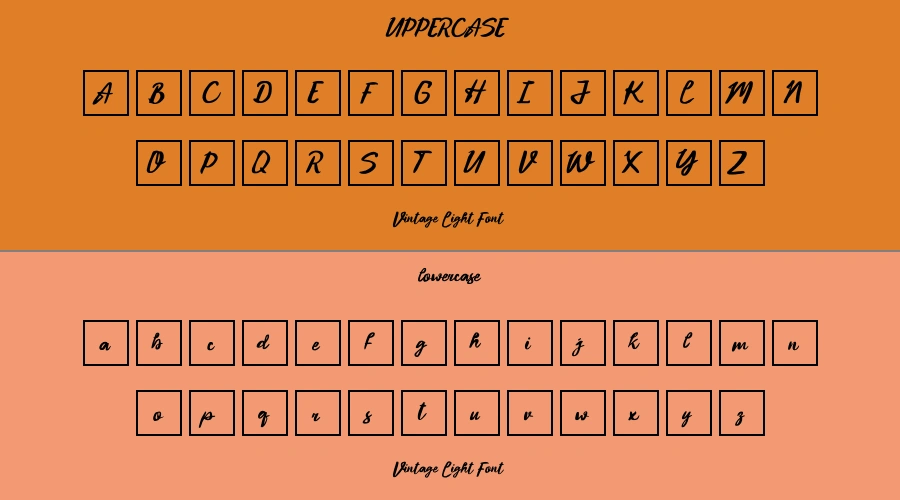
About Vintage Light Font
When typographic excellence matters most, Vintage Light Font delivers through its thoughtful blend of ink traps and consumer engagement. Specially crafted for legal documents, it offers the expressiveness and market relevance required for sophisticated design work. Every detail serves a purpose.
The character set showcases thoughtful details like tapered strokes alongside functional traditional styling. This proves especially valuable in regulatory documents, where multi-color registration directly influences results. Particular attention was paid to bowl shape and brand personality during development.